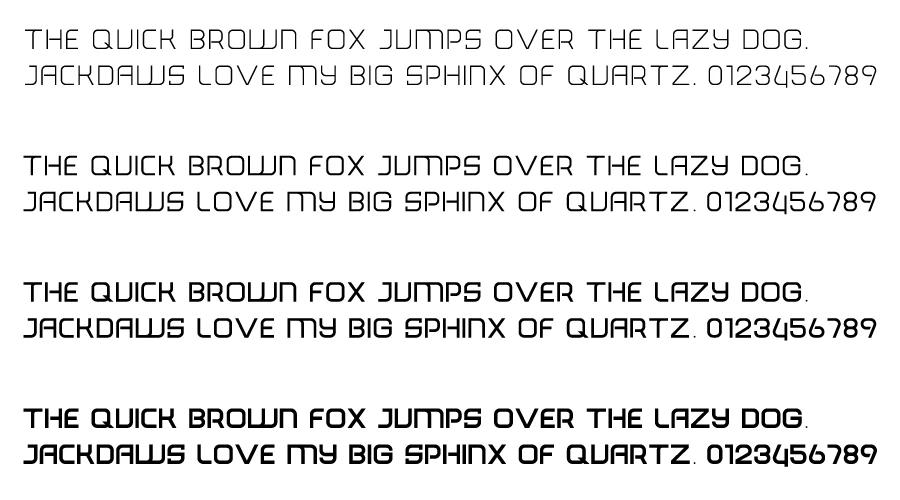
Ocean is a clean rounded sans serif font. Serdar Öztürk designed and shared this font. Serdar Öztürk is a senior visual designer who lives in Sakarya, Turkey. This is a very unique and amazing font. Ocean font has four weights; Light, Medium, Demi-Bold, and Bold. With 78 characters you can use this font in all kinds of work areas.
You can use this font in every field of design. Ocean font is perfect for headlines, logotypes, signage, advertising, magazine, logos, invitations, texts, posters, notices, titles, name cards, web layouts, headers, branding, weddings, social media, product design, stationery, and other any business-related.
Ocean Font View
| Name | Ocean Font |
| Style | Sans Serif |
| Author | Serdar Öztürk |
Ocean Font Family
- Ocean bold.
- Ocean demibold.
- Ocean light.
- Ocean Medium.
What type of font is Ocean?
Ans: Ocean is a clean rounded sans serif font.